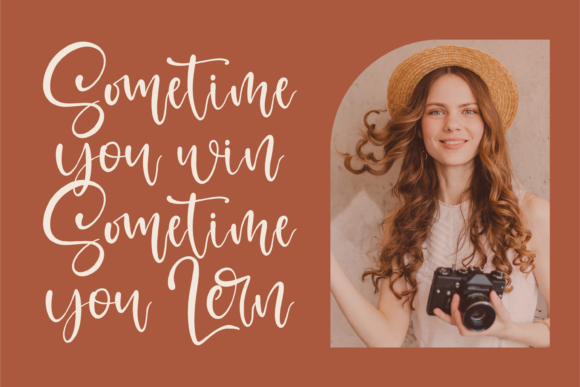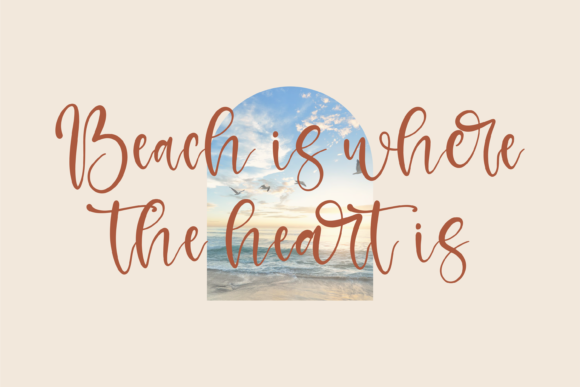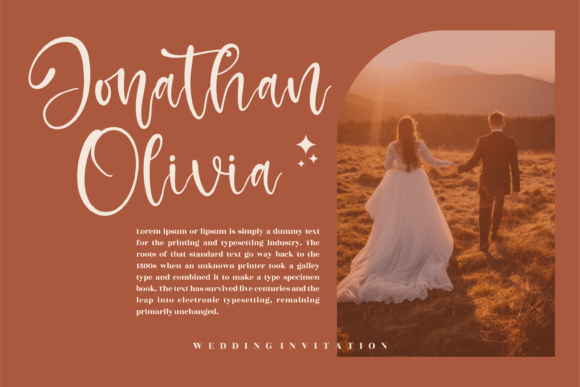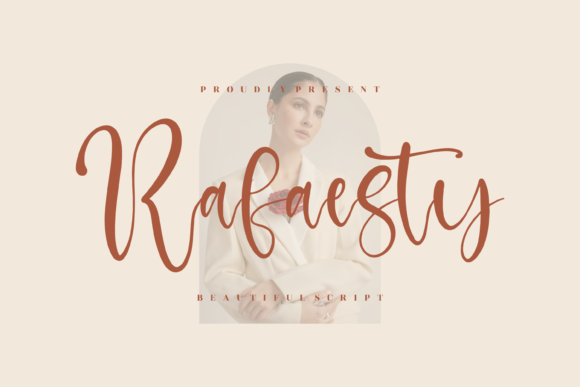
Introduction to Rafaesty Font
Rafaesty is a beautiful script font, suitable for any projects such as logos, branding projects, homeware designs, product packaging, mugs, quotes, posters, shopping bags, t-shirts, book covers, name cards, invitation cards, and greeting cards.
You can also use it for labels, photography, watermark, special events, and all your other lovely projects that need a beautiful script taste .
Rafaesty Font offers exceptional quality and versatility, making it a valuable addition to your design toolkit. Whether you’re creating for personal projects or commercial use, Rafaesty Font delivers professional results.